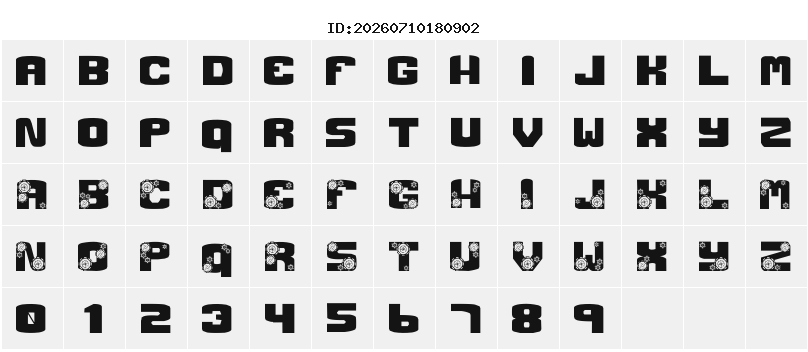
• Font Name: Gear Crank
• Full Font Name: Gear Crank
About Gear Crank.ttf
Gear Crank.ttf is a modern, elegant sans-serif font designed for ultimate readability and visual harmony. Perfect for branding, headlines, web design, and print materials.